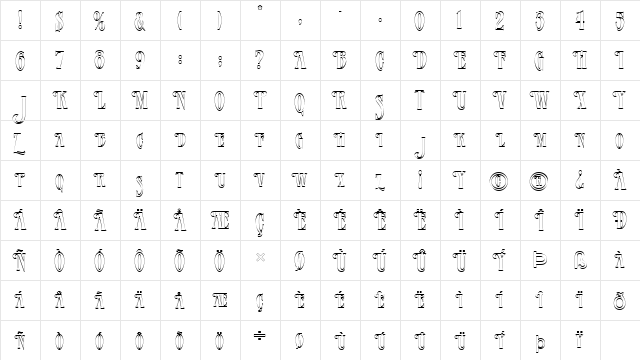
FZ JAZZY 23 HOLLOW Normal
Design Context for FZ JAZZY 23 HOLLOW Typeface
FZ JAZZY 23 HOLLOW is a composed and adaptable typeface that performs quietly and consistently across a wide range of design contexts.